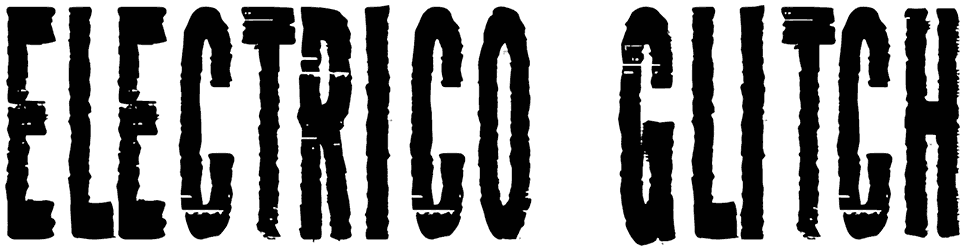
You can create an artistic and modern design with a well-chosen item of word design. As an eroded font, d Dredex has a bold and unique hand-drawn letter style. With this glitch font, you can adorn your innovative designs, for instance, illustrations, postcards, game screens, apparel, or the like, and make them attractive.